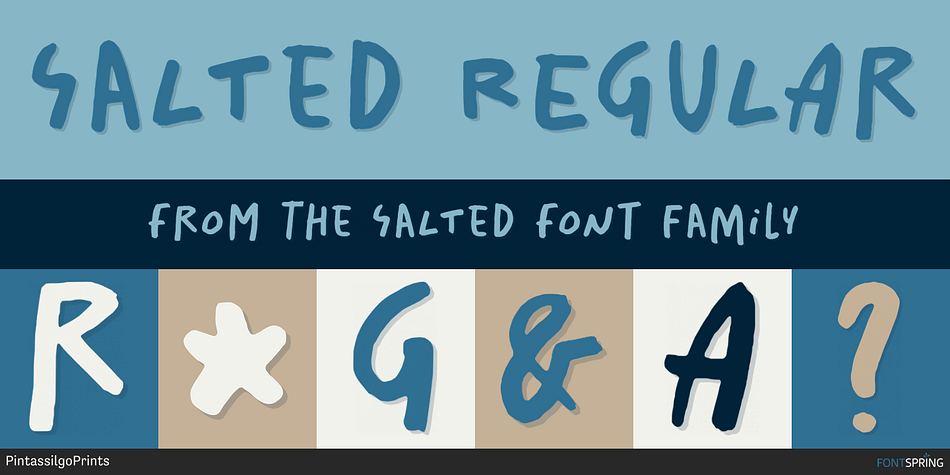
Salted Regular
Designed by Erica Jung and Ricardo Marcin, Salted is a dingbat and hand drawn font family. This typeface has three styles and was published by PintassilgoPrints.
Somewhat extravagant and yet quite useful? Yes, absolutely.
Meet Salted family: two awesome font styles and a way cool picture font.
Deliberately free-spirited, Salted - the Regular, yet regular is not such an appropriate adjective to it - brings alternates and also stunning discretionary ligatures that completely transform the font mood, adding touches of cursive script along the way and creating a wild and awesome feel.
Salted Sweet also brings alternates, 3 for letters, 2 for figures, and is way more even-tempered than it’s playmate. By the way, they play truly nice together. Enter the picture font and the team is complete for an exciting time.
It’s said that the cure for anything is salt water: sweat, tears or the sea. We totally agree. Perhaps the cure for a boring design lies in a salted font. Give it a go!
Designers Erica Jung, Ricardo Marcin